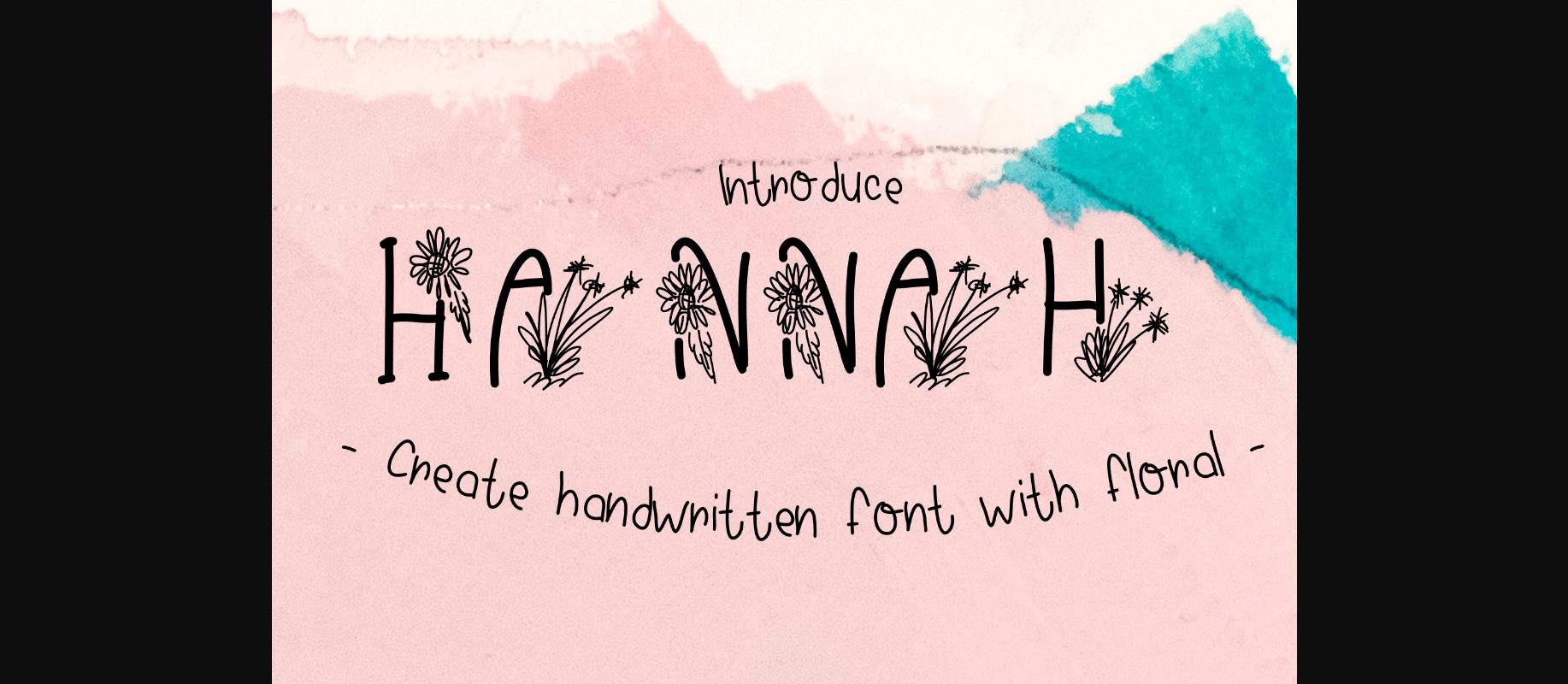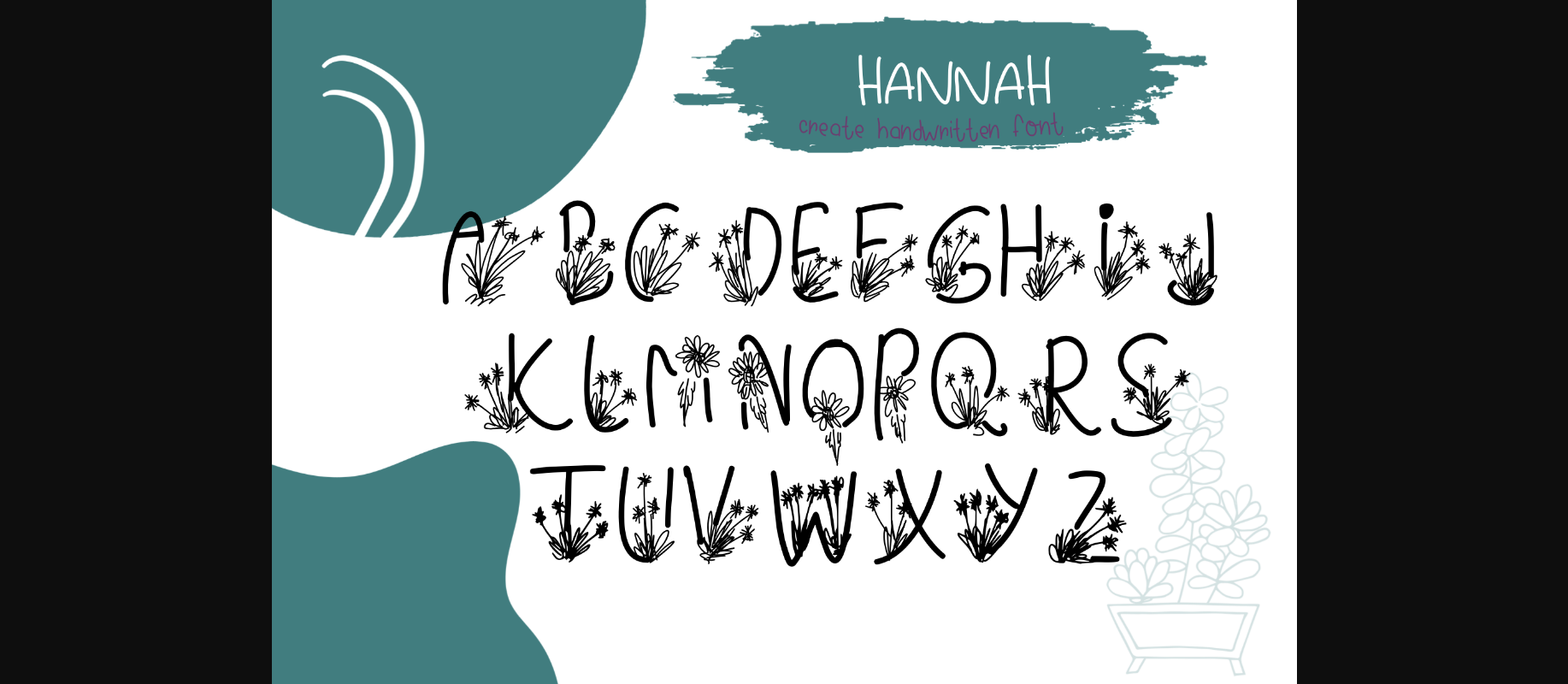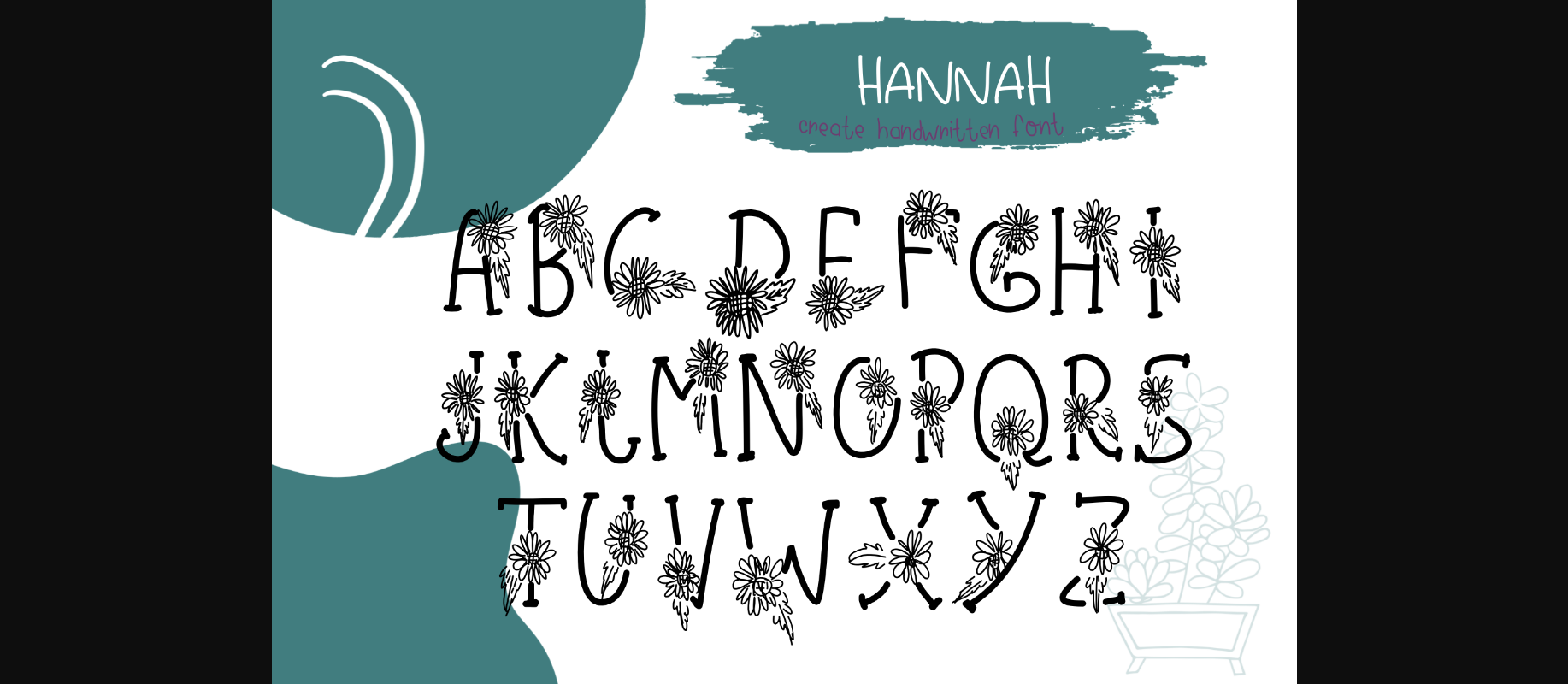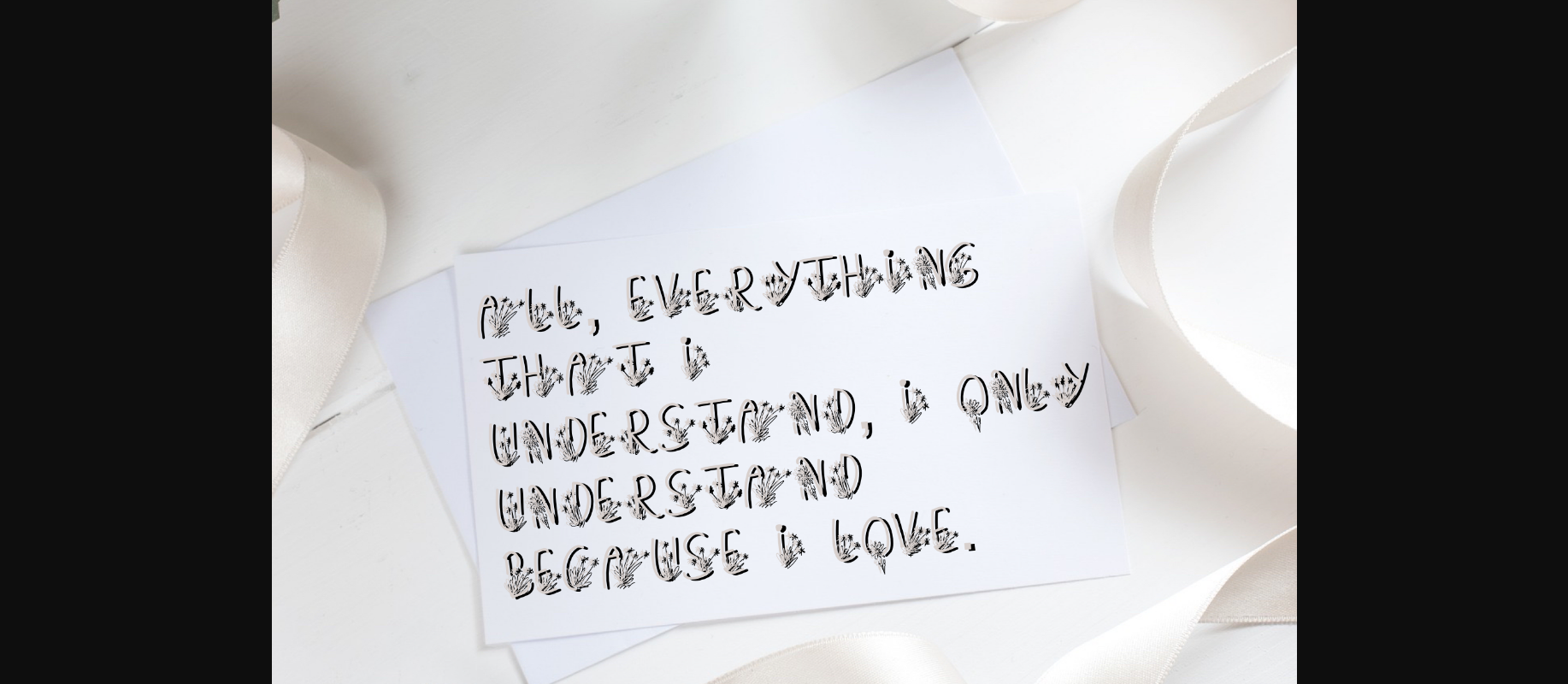
Hannah Font
About Hannah Font
Hannah is a cute and delicate decorative font, featuring little wreaths as ornaments. Fall in love with its unique and lovely style and add it to your most creative ideas!